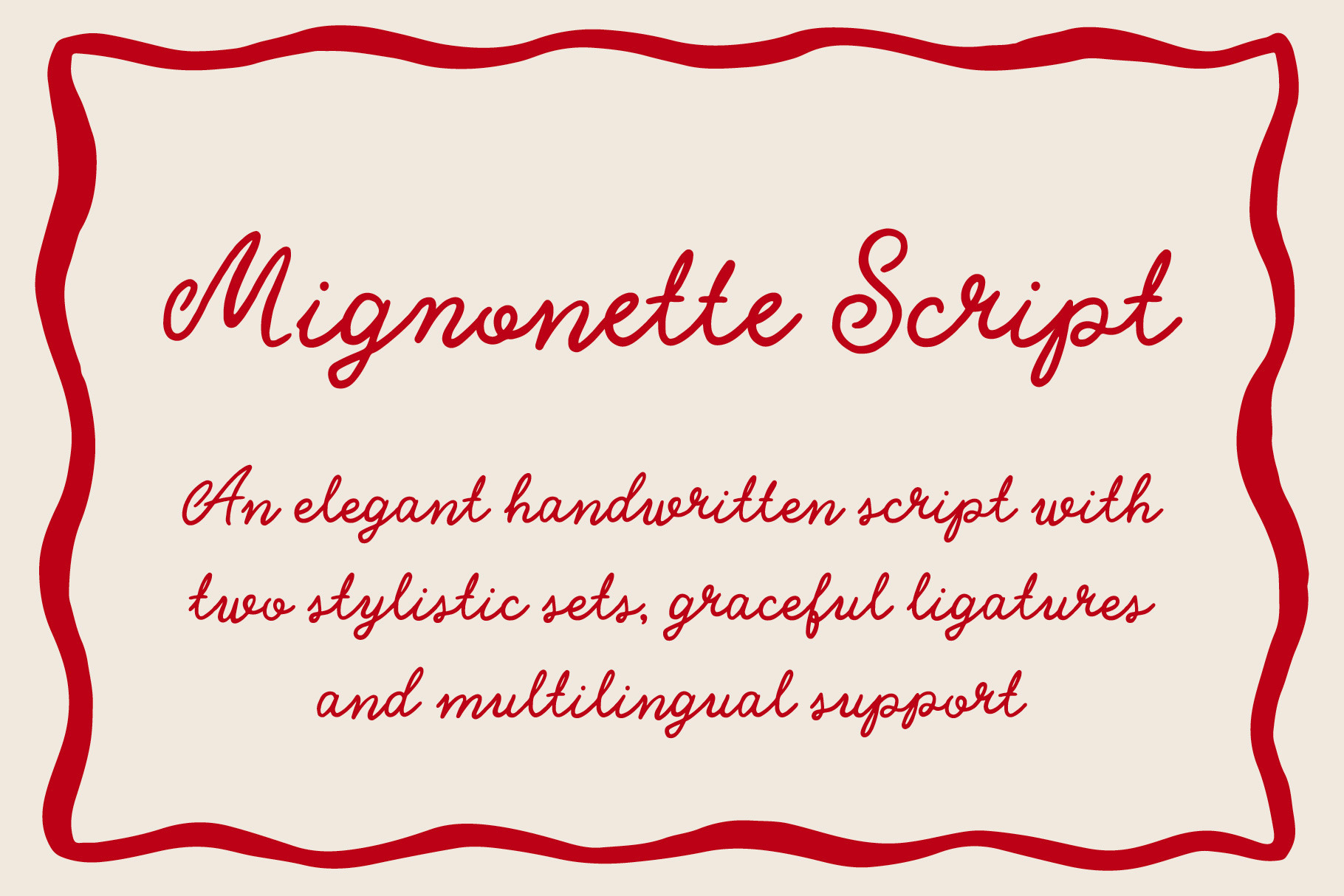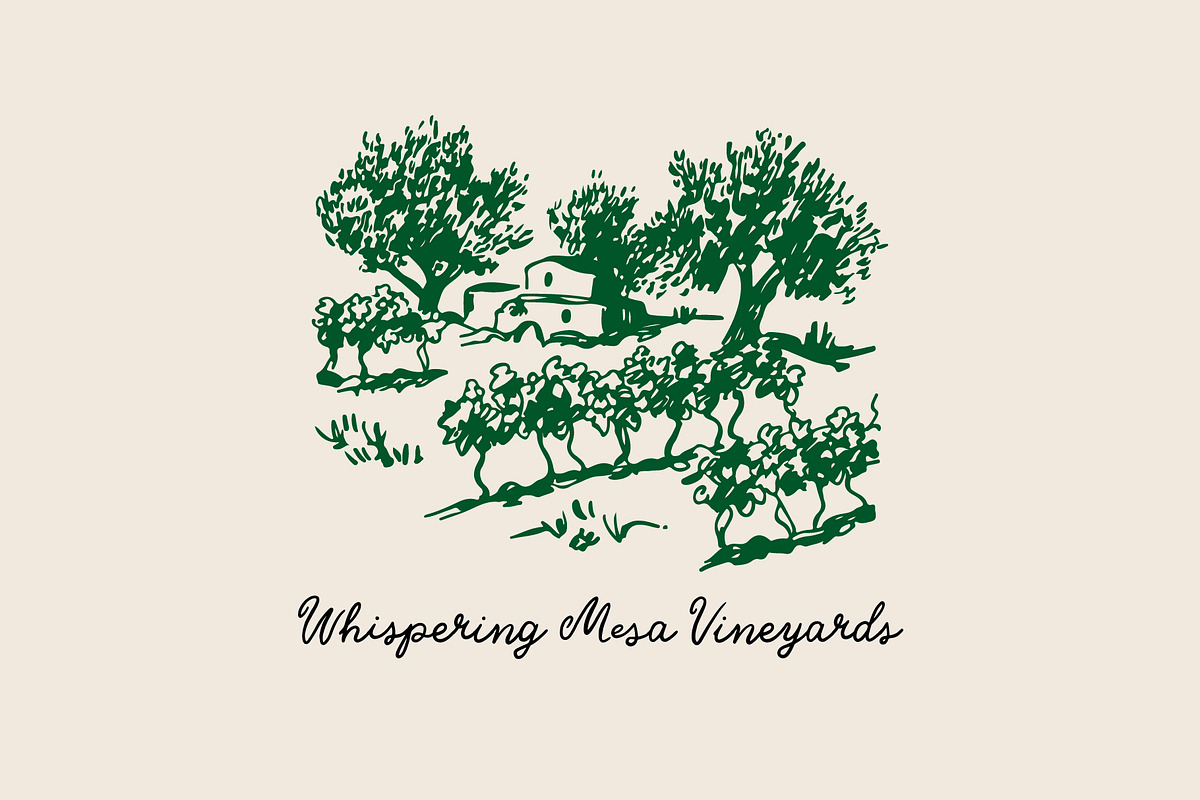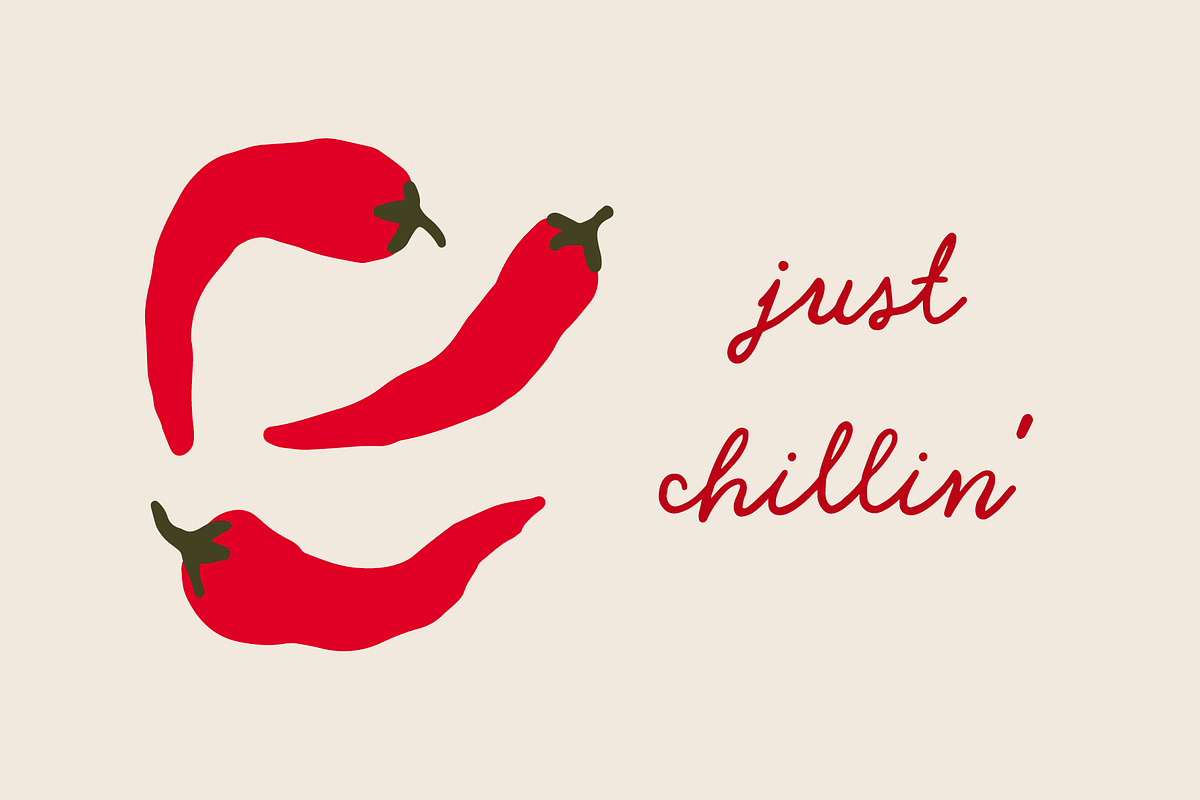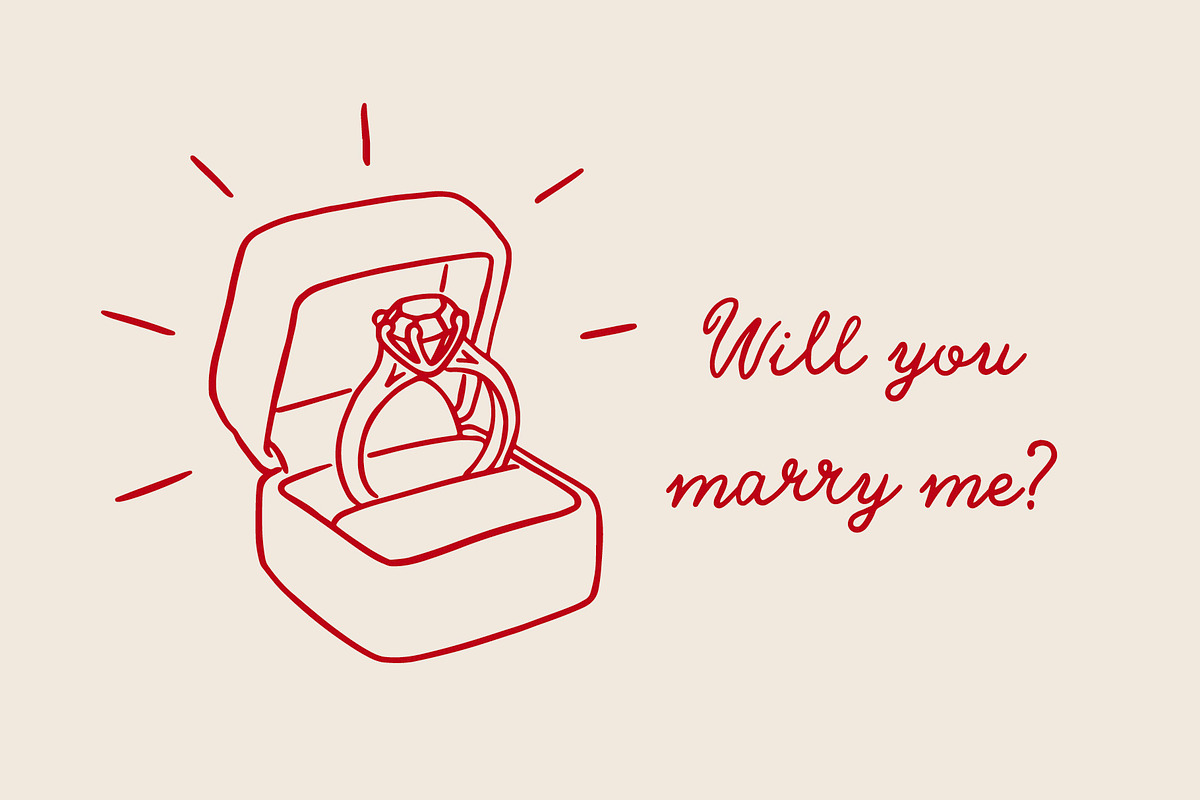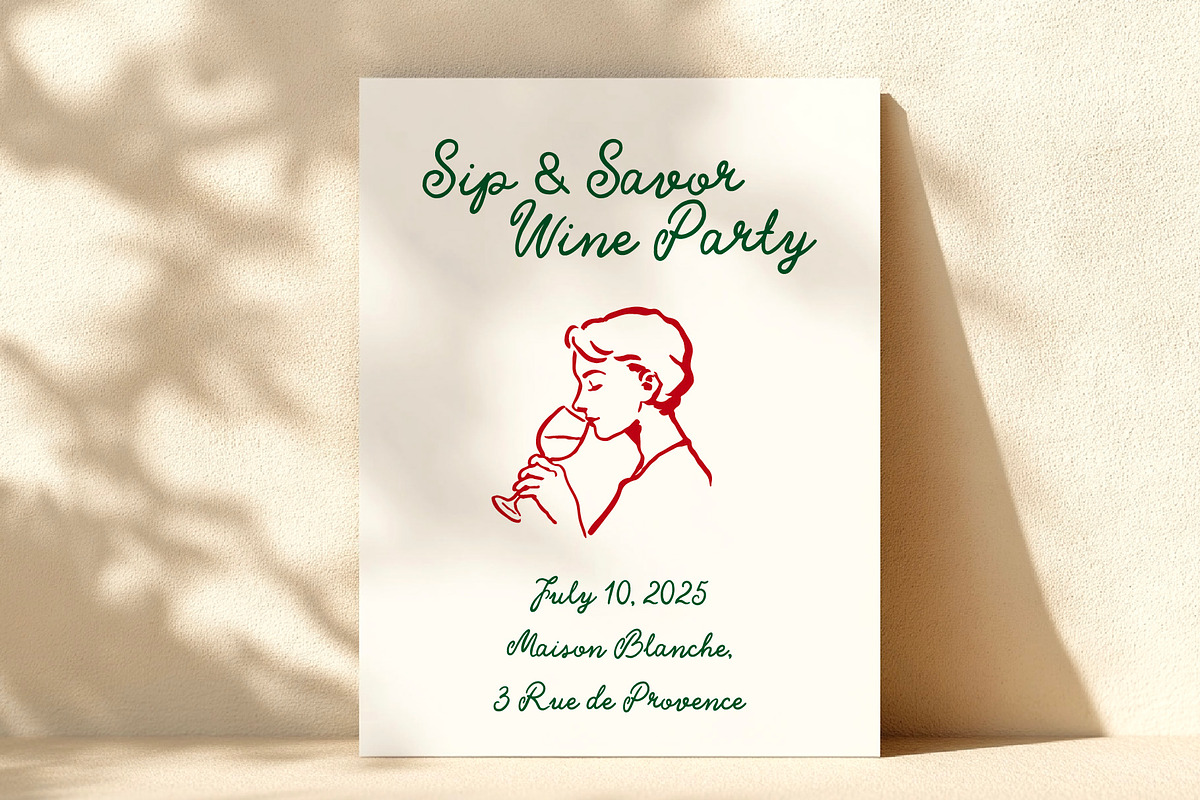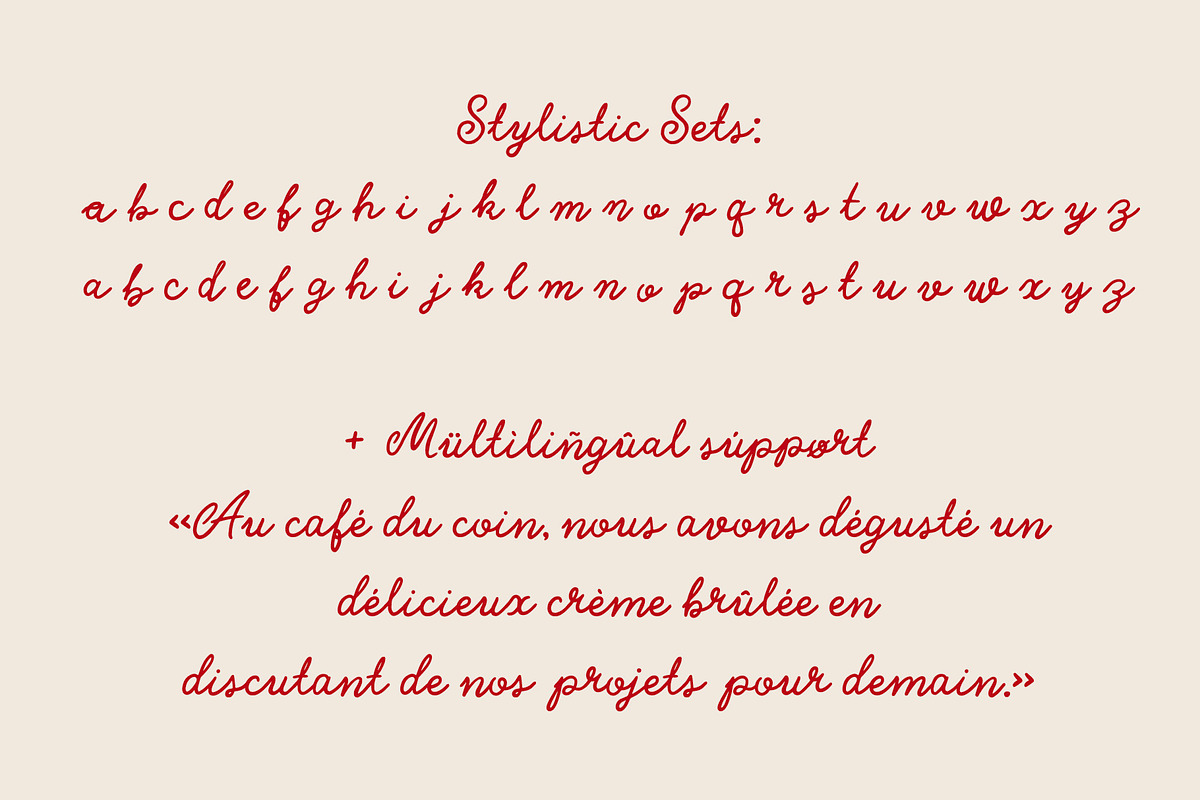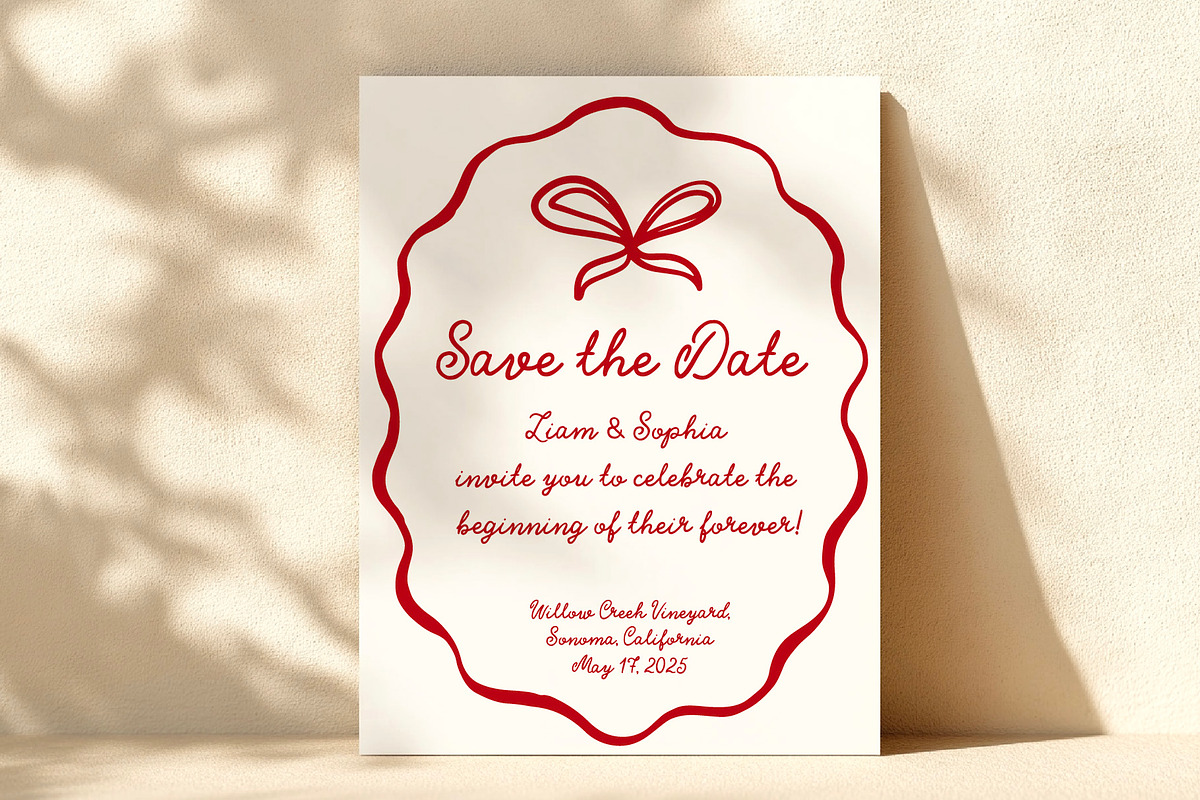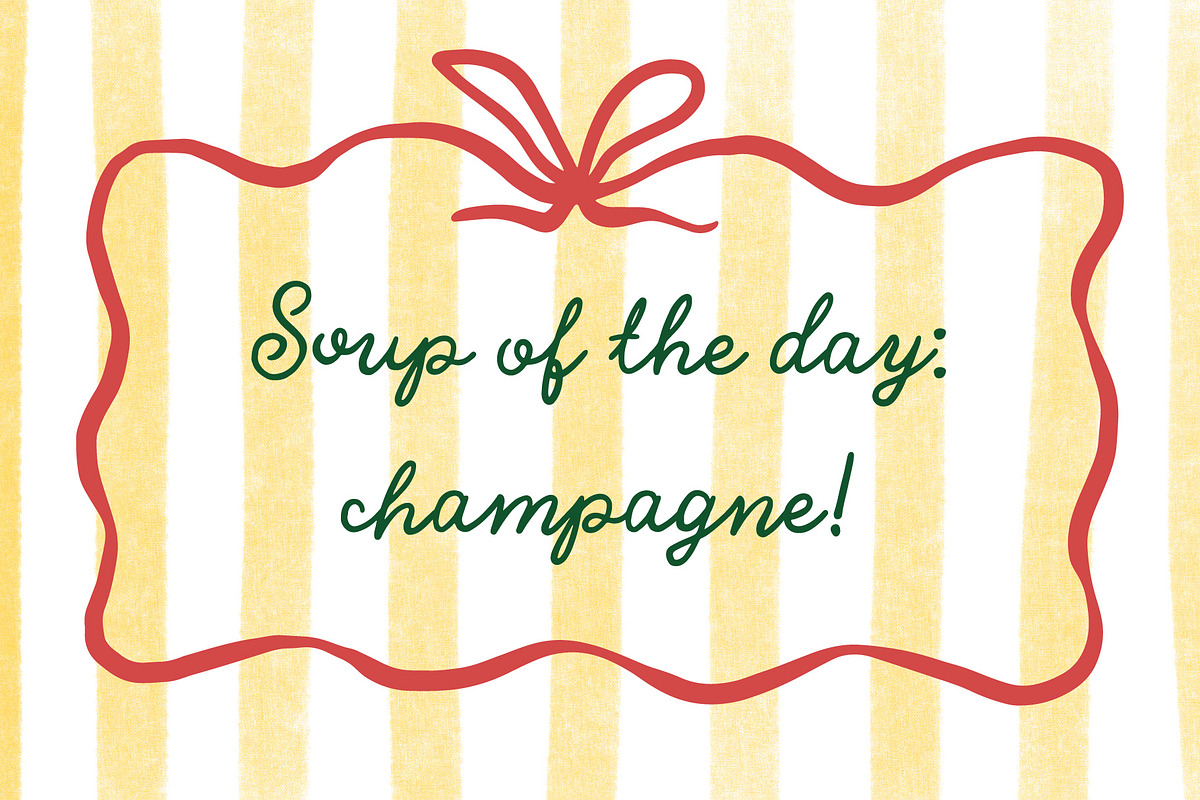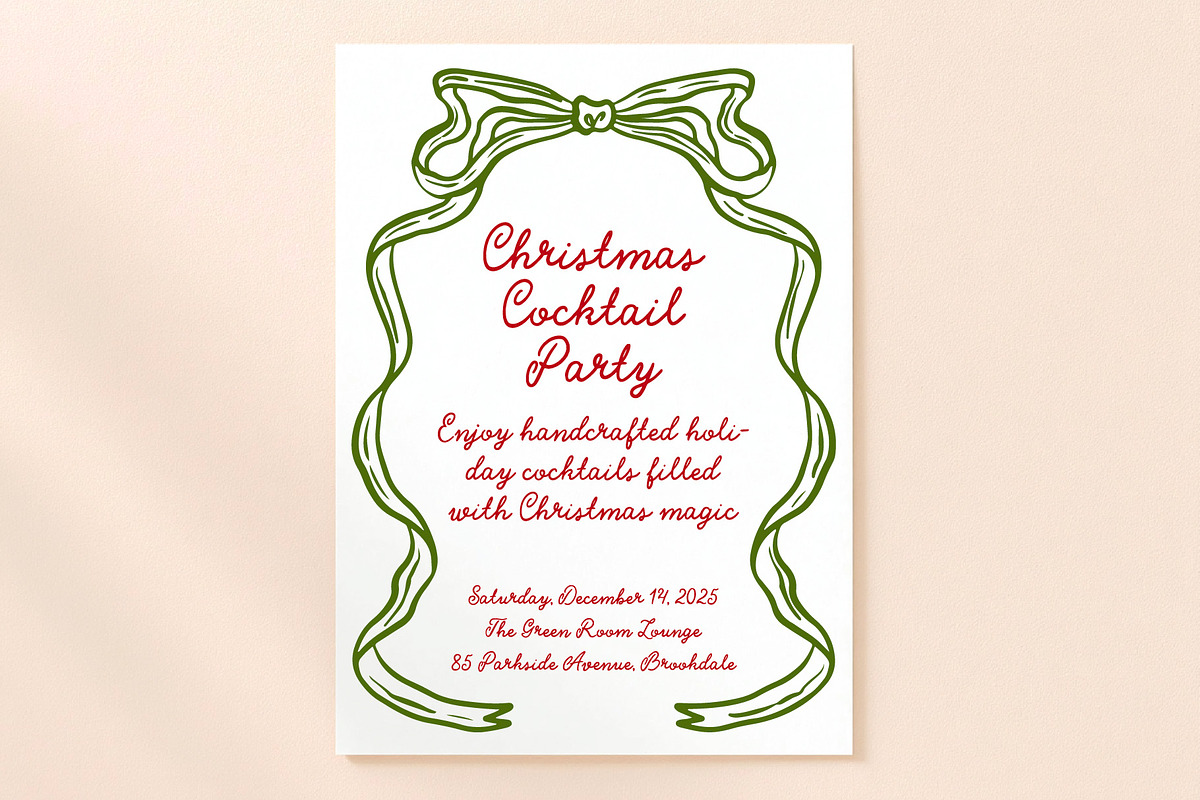
Mignonette Script Font
Mignonette Script is an elegant and modern handwritten script font, crafted to bring a graceful, refined touch to any design. With its smooth curves and flowing forms, it’s perfect for weddings, branding, social media graphics, packaging, or anything that needs a sophisticated yet personal feel.
- Handwritten script with modern elegance
- Two stylistic sets for creative versatility
- Beautiful ligatures for natural letter flow
- Multilingual support for Basic Latin and Western European languages — check the preview to confirm language compatibility